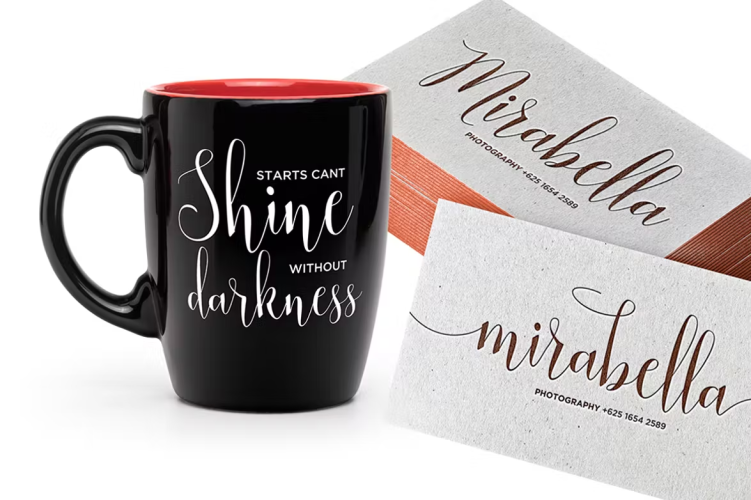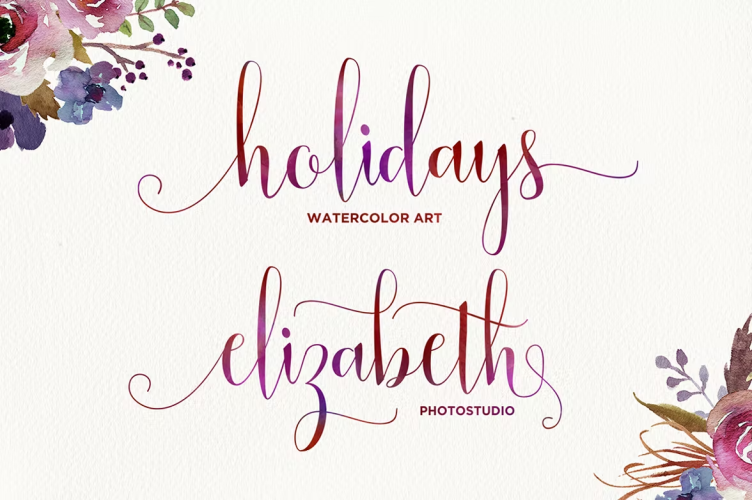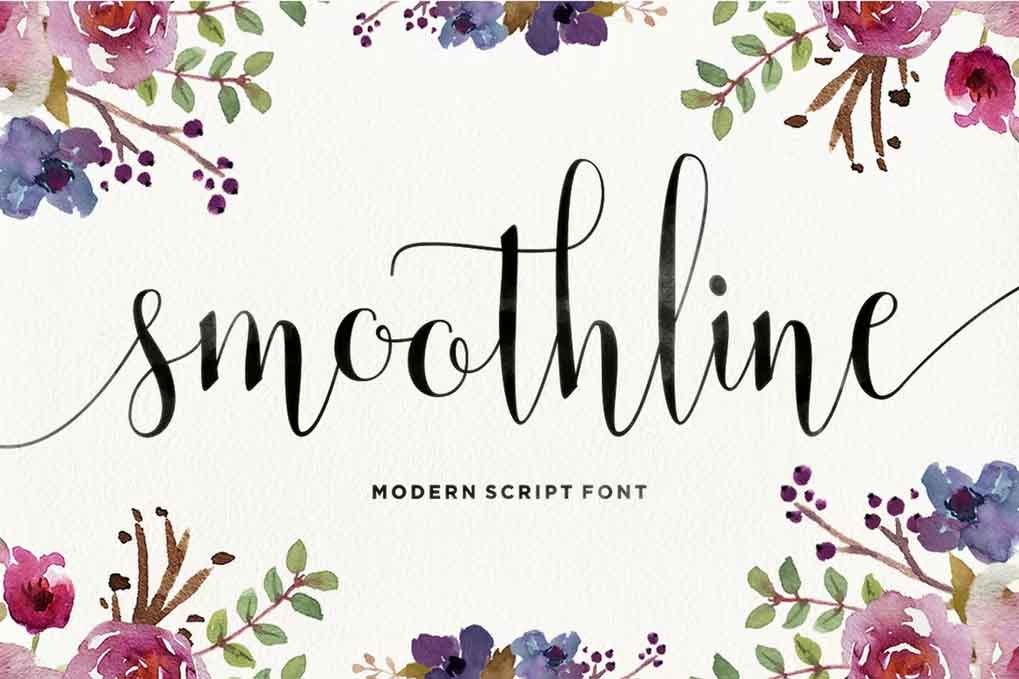
Smoothline Script Font
Smoothline Script is a modern calligraphy font, with characters dance along the baseline and elegant touch. With almost 421 glyphs. Opentype features with stylistic alte…
Smoothline Script is a modern calligraphy font, with characters dance along the baseline and elegant touch. With almost 421 glyphs. Opentype features with stylistic alternates, ligatures and multiple language support. Can be used for various purposes.such as logos, wedding invitation, heading, t-shirt, letterhead, signage, lable, news, posters, badges etc.
Where Smoothline Script Font works best
Smoothline Script Font brings a personal, handwritten warmth to invitations, menus and place cards.
Craft brands — coffee, cosmetics, bakery — use scripts like Smoothline Script Font for signature-style logos and labels.
Pair Smoothline Script Font with a plain sans for quotes, stories and Pinterest pins that feel handmade.
What is Smoothline Script Font good for?
Smoothline Script Font is a Script And Handwritten typeface tagged Branding, Calligraphy, Elegant, Modern. It works well for headlines, logos, posters, social media graphics and branding projects that need a distinctive script and handwritten look.